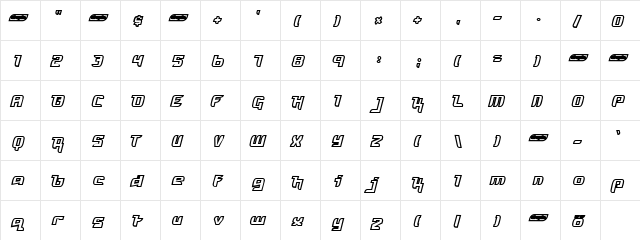
Freya Outline Regular
Design Context for Freya Outline Typeface
Freya Outline is built around its visual character rather than neutral utility — its distinctive forms are designed to make an impression at display sizes.
Font Pairing: Pair with a clean neutral sans-serif for body copy to let Freya Outline's character lead without overwhelming the composition.
Pro Tip: Treat Freya Outline as the centrepiece of your typographic hierarchy. One strong heading set in a decorative face can carry an entire layout.